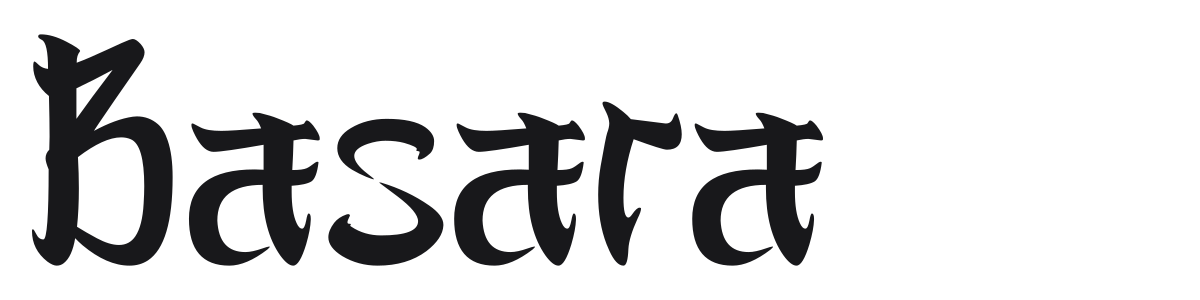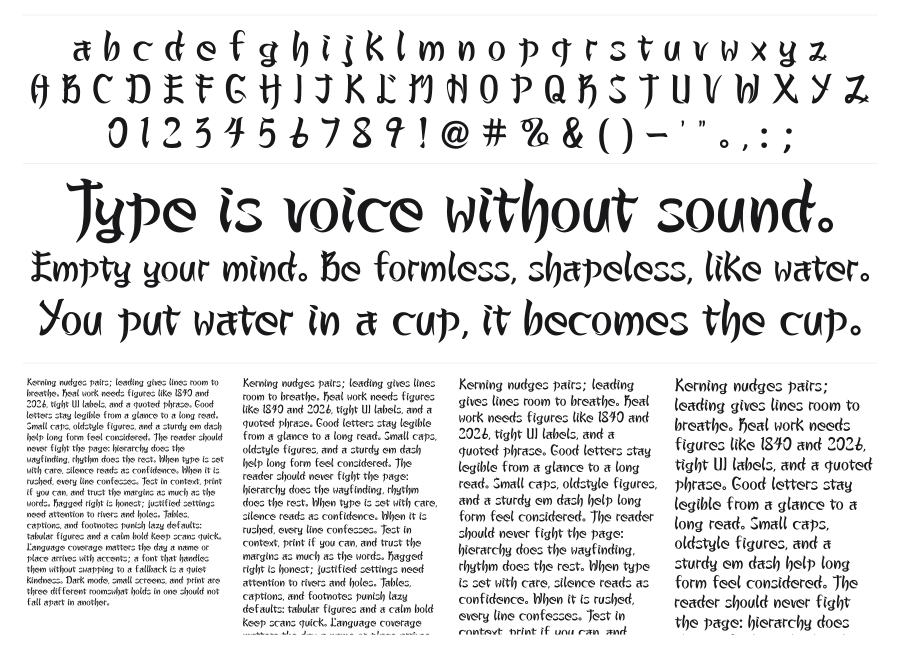
Basara
Basara is a bold brush script with dramatic stroke contrast and a gestural, hand-inked character. Its thick downstrokes and sweeping hairline exits carry a subtle East Asian calligraphic influence, giving it a cultural fusion quality that sits between Western brush lettering and Eastern ink traditions. Strong at large sizes for logos, packaging, and editorial headlines.